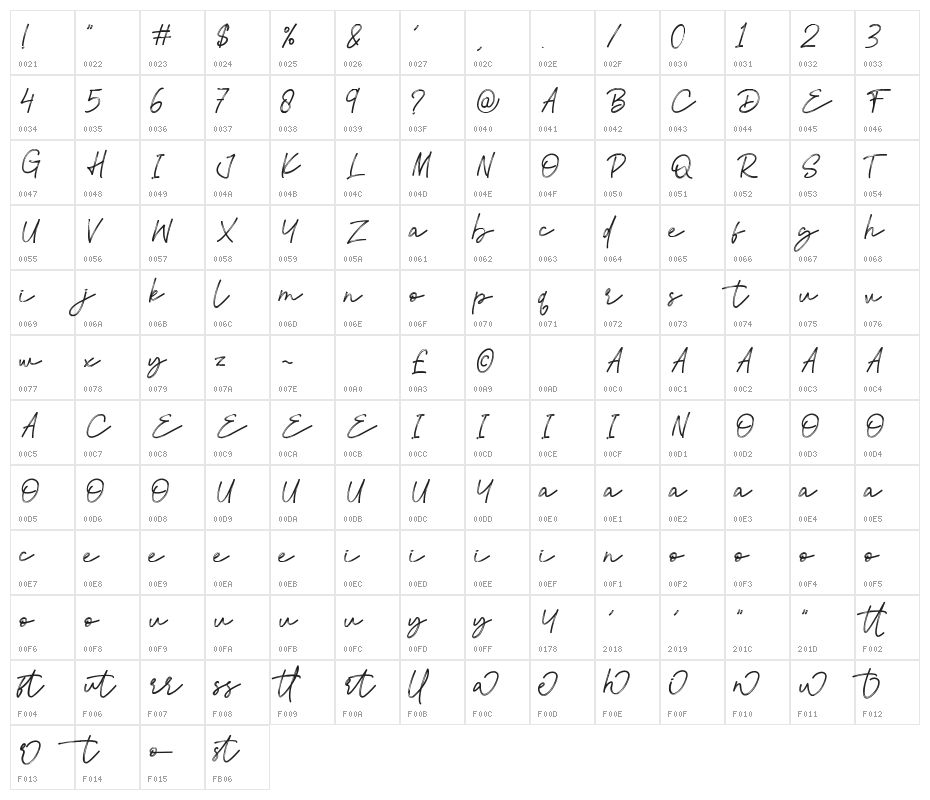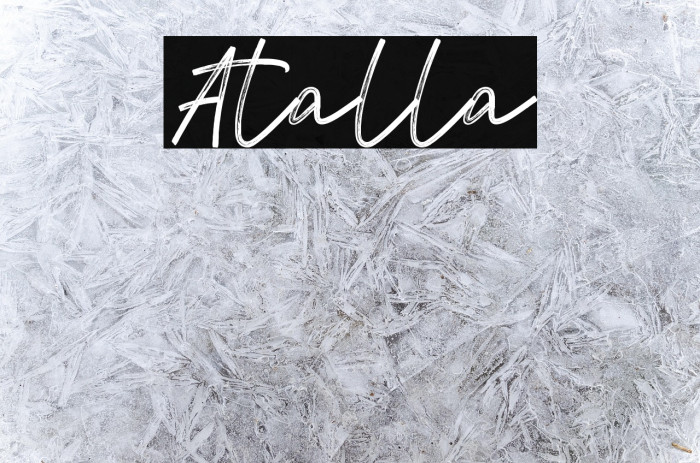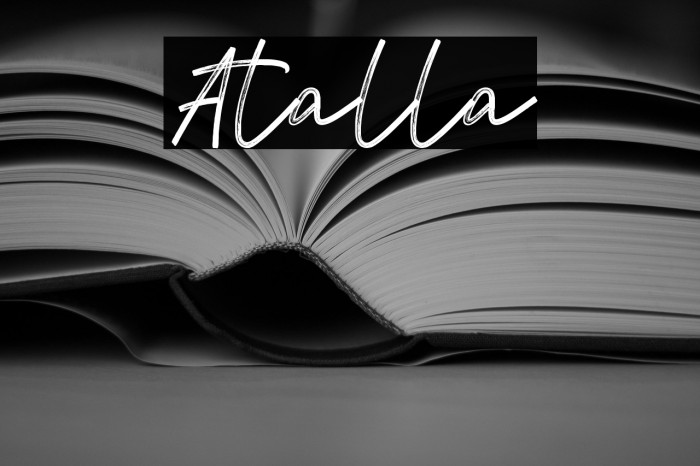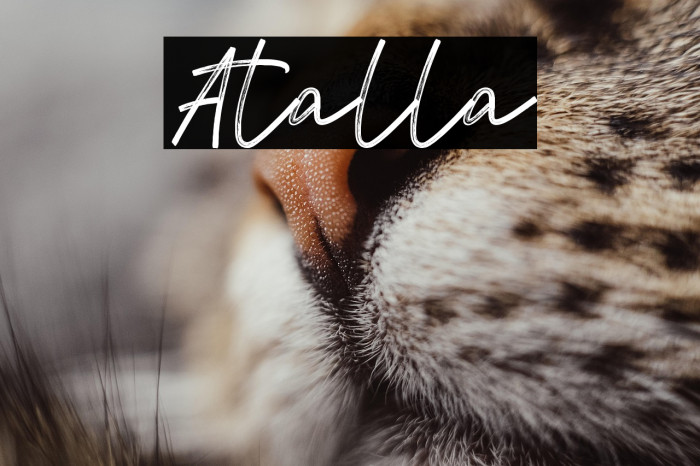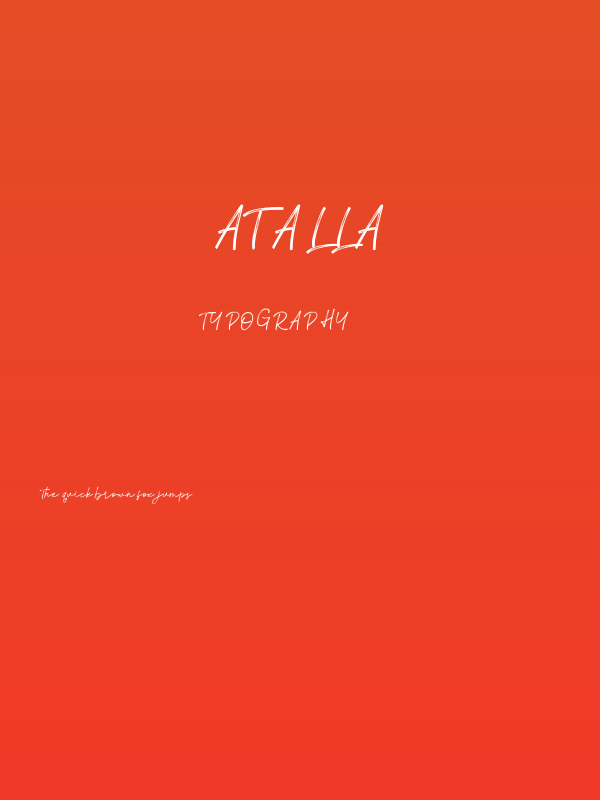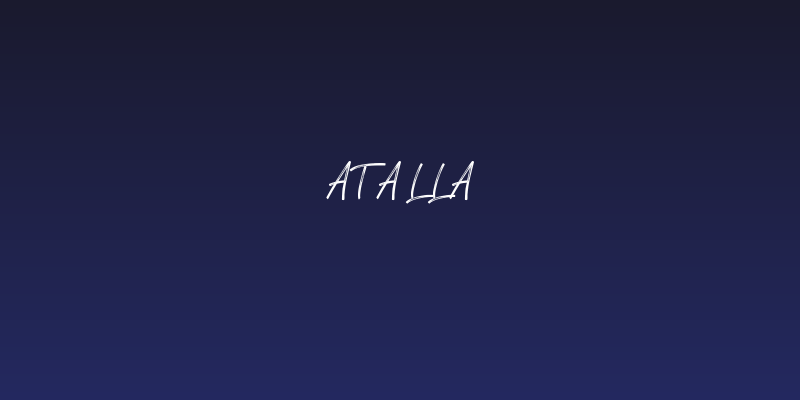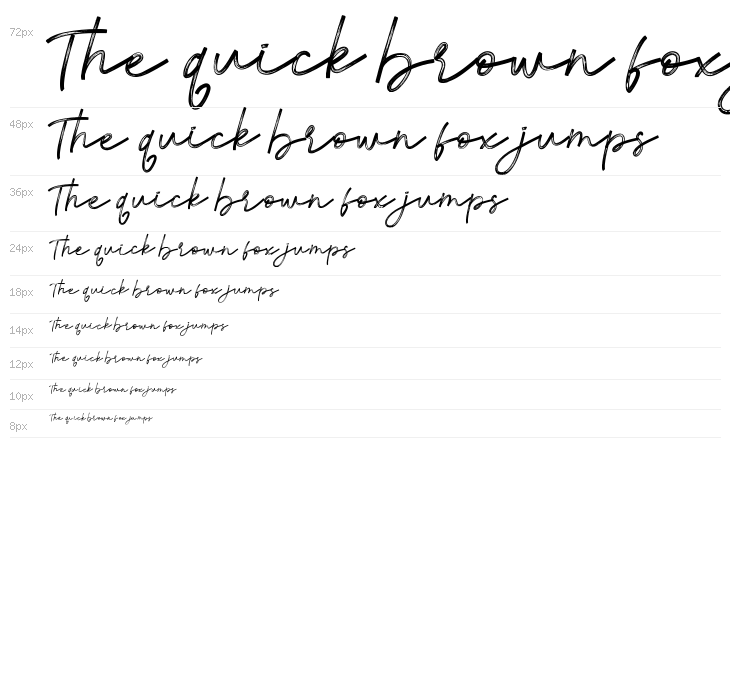
Atalla Font
Atalla Description
This font features a handwritten, cursive style that exudes elegance and fluidity. The characters are connected with smooth, flowing strokes, giving it a natural and personal touch. The uppercase letters maintain a consistent height, while the lowercase letters vary in size, adding to the dynamic and lively appearance. The numerals are clear and legible, complementing the overall style. Special characters are included, maintaining the same cursive and flowing design. The font's organic and artistic nature makes it suitable for creative and expressive projects.
| Use Case | Logos, Invitations, Artistic projects |
| Proposed Projects | Ideal for wedding invitations, greeting cards, personal branding, and artistic projects. |